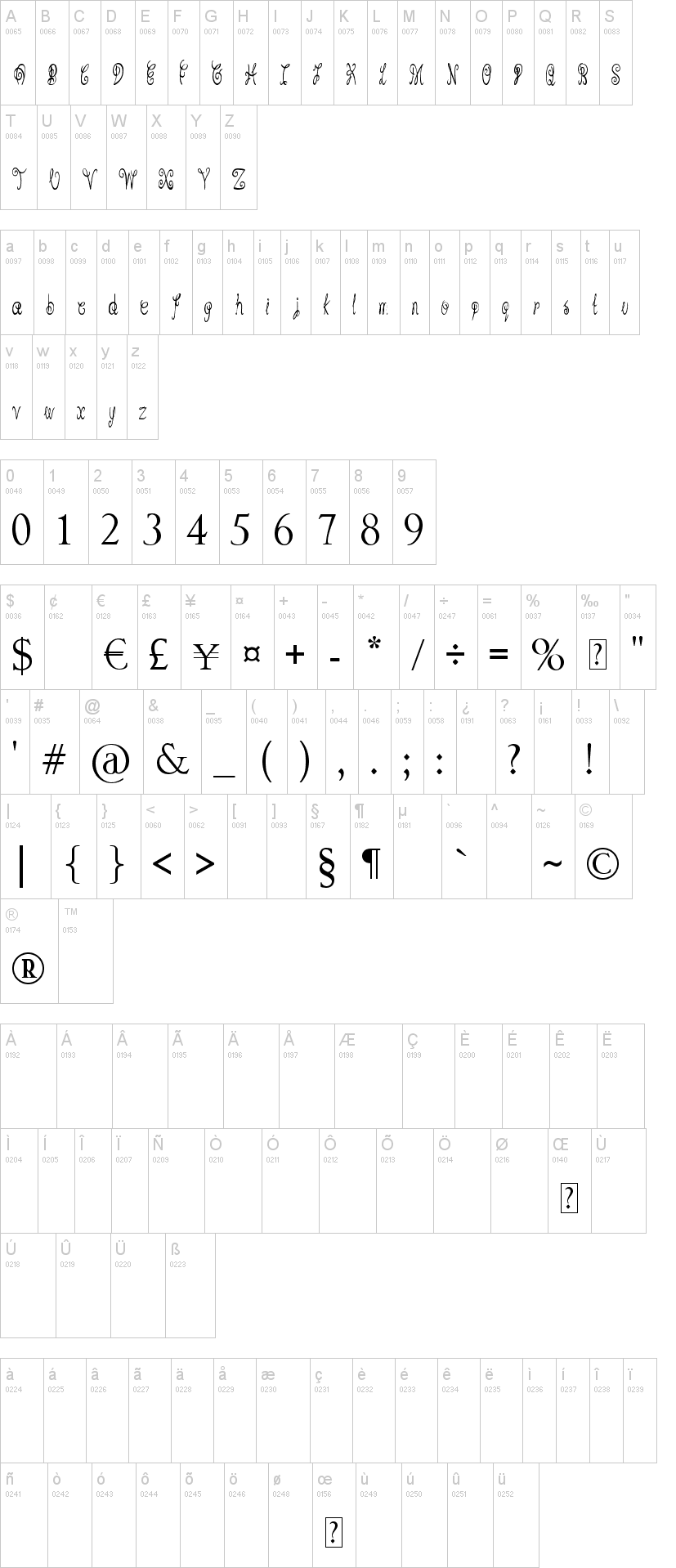
Note of the authorPixie Moon is a loosely handwritten font and is free for personal use only. If you would like to use this font commercially you can buy a license at http://www.tattoowoo.com/fonts or alternatively email the creator of the font, Jonathan Harris at info@tattoowoo.com